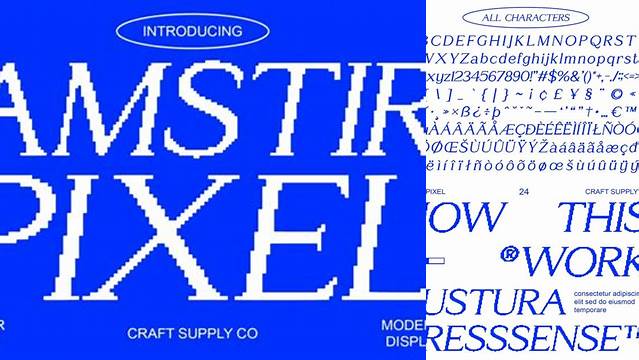
What is Amstir Pixel Font?
First off, let's understand what makes Amstir Pixel Font so special. It’s a typeface designed to mimic the classic 8-bit and 16-bit video game era. Think old-school arcade games and early computer interfaces. This font is all about those chunky, square pixels that create a nostalgic and distinct look. Its charm lies in its simplicity and the retro aesthetic it brings to any design. The Amstir Pixel Font often comes in various weights and styles, allowing for versatility in application. Whether you are designing a video game interface, a retro-themed poster, or just want to add a touch of old-school cool to your website, Amstir Pixel Font free download can be an excellent choice. When using a pixel font like Amstir, you're not just choosing a typeface; you're embracing a whole era of digital design and culture. The font’s clear and legible design ensures that even with the pixelated appearance, readability is maintained, making it suitable for both headlines and short paragraphs. Its unique visual appeal can make your project stand out and capture the attention of viewers who appreciate the retro aesthetic. Plus, the availability of different styles means you can find the perfect fit for your specific project needs, ensuring that your design is both functional and visually appealing. So, next time you are looking to infuse some retro charm into your work, remember that the Amstir Pixel Font free download is a fantastic option to consider!
Why Choose Amstir Pixel Font?
So, why should you pick Amstir Pixel Font over other pixel fonts out there? Well, several reasons make it a standout choice. First off, its readability is top-notch, even with the pixelated style. Some pixel fonts can be hard to read, especially at smaller sizes, but Amstir is designed to maintain clarity. Secondly, Amstir Pixel Font free download often comes with a complete character set, including uppercase and lowercase letters, numbers, punctuation, and even some special symbols. This makes it versatile for a wide range of projects. Another significant advantage is its aesthetic appeal. The font’s design is carefully crafted to evoke a sense of nostalgia without looking outdated or clichéd. It strikes a balance between retro charm and modern usability. Furthermore, many designers appreciate that Amstir Pixel Font free download can often be found with different licensing options, making it suitable for both personal and commercial projects (just be sure to check the specific license). Using a pixel font like Amstir can also help create a cohesive visual theme for your project, especially if you're aiming for a retro or gaming-inspired look. Its distinctive style can set your work apart from more generic designs, adding a unique and memorable element. In addition to its visual qualities, the Amstir Pixel Font is often optimized for digital use, ensuring it renders well on various screen sizes and resolutions. This is crucial for maintaining readability and visual impact across different devices. All in all, the Amstir Pixel Font combines readability, versatility, aesthetic appeal, and practicality, making it a solid choice for anyone looking to add a retro touch to their designs.
Using Amstir Pixel Font in Your Projects
Now for the fun part: putting your Amstir Pixel Font free download to work! Here are some ideas on how to use it effectively:
- Video Games: This is a no-brainer. Use it for in-game text, menus, and HUDs to create an authentic retro gaming experience.
- Web Design: Add a touch of nostalgia to your website with pixelated headers or body text. Just be mindful of readability, especially for longer paragraphs.
- Graphic Design: Create eye-catching posters, flyers, and social media graphics with a retro vibe.
- Logos: Design a unique logo that stands out with its pixelated charm.
- Merchandise: Use the font on t-shirts, mugs, and other merchandise for a retro-themed product line.
When using Amstir Pixel Font free download, consider the overall design context. It works best when paired with other retro elements, such as pixel art, vintage color palettes, and chiptune music. Pay attention to the font size and spacing to ensure readability, especially in digital applications. Experiment with different styles and weights to find the perfect look for your project. Also, think about the target audience. If you're aiming for a nostalgic feel, make sure your audience understands and appreciates the retro aesthetic. Overusing pixel fonts can make your design look dated or amateurish, so use them sparingly and strategically. Combining the Amstir Pixel Font free download with modern design techniques can create a unique and compelling visual experience that bridges the gap between retro and contemporary styles. Remember to have fun and let your creativity flow!
Monospaced vs. Proportional Pixel Fonts
When choosing a pixel font, you'll encounter two main types: monospaced and proportional. Understanding the difference is key to selecting the right font for your project.
- Monospaced Fonts: In a monospaced font, each character takes up the same amount of horizontal space. This means that letters like